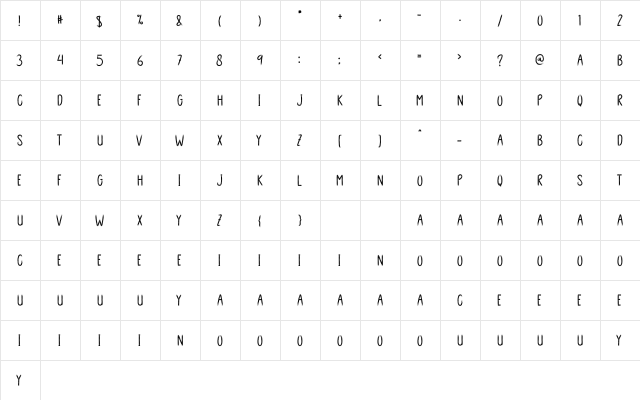
BLACK CROW Regular
Design Context for BLACK CROW Typeface
BLACK CROW takes a measured approach to typography — its balanced proportions and neutral character make it a reliable workhorse for both digital and print work.